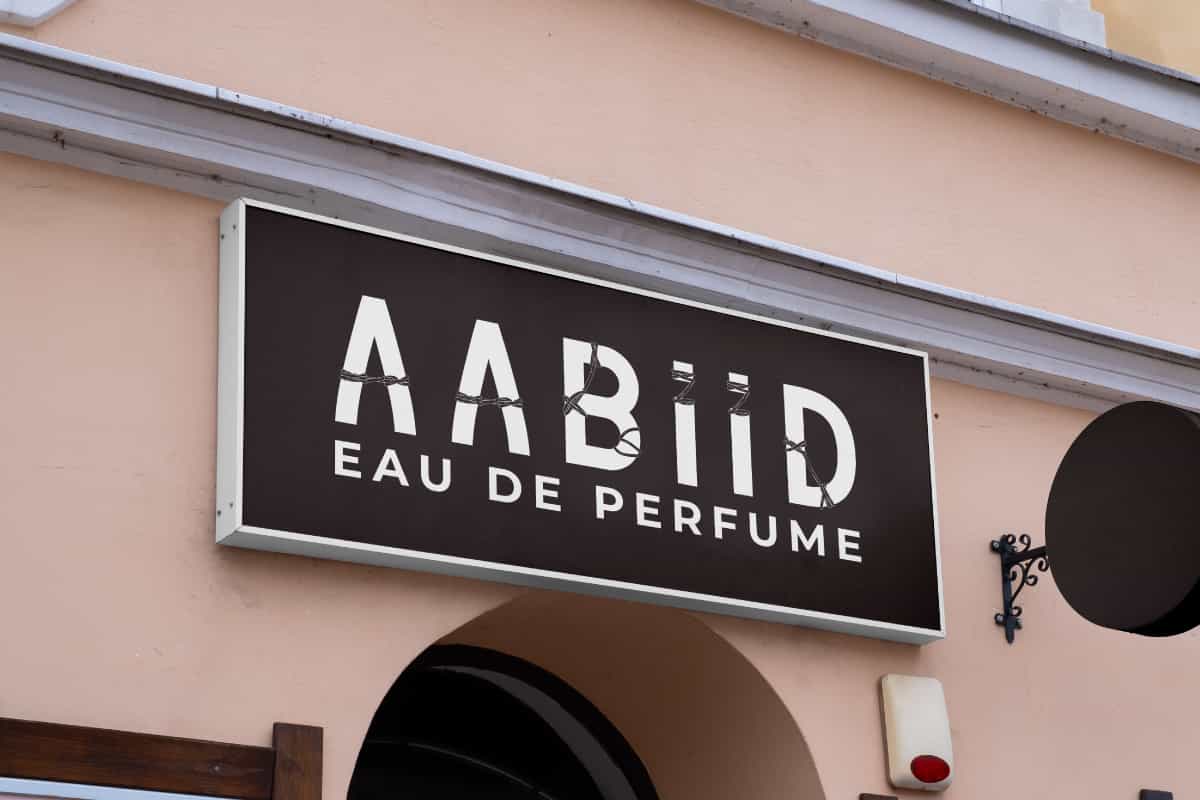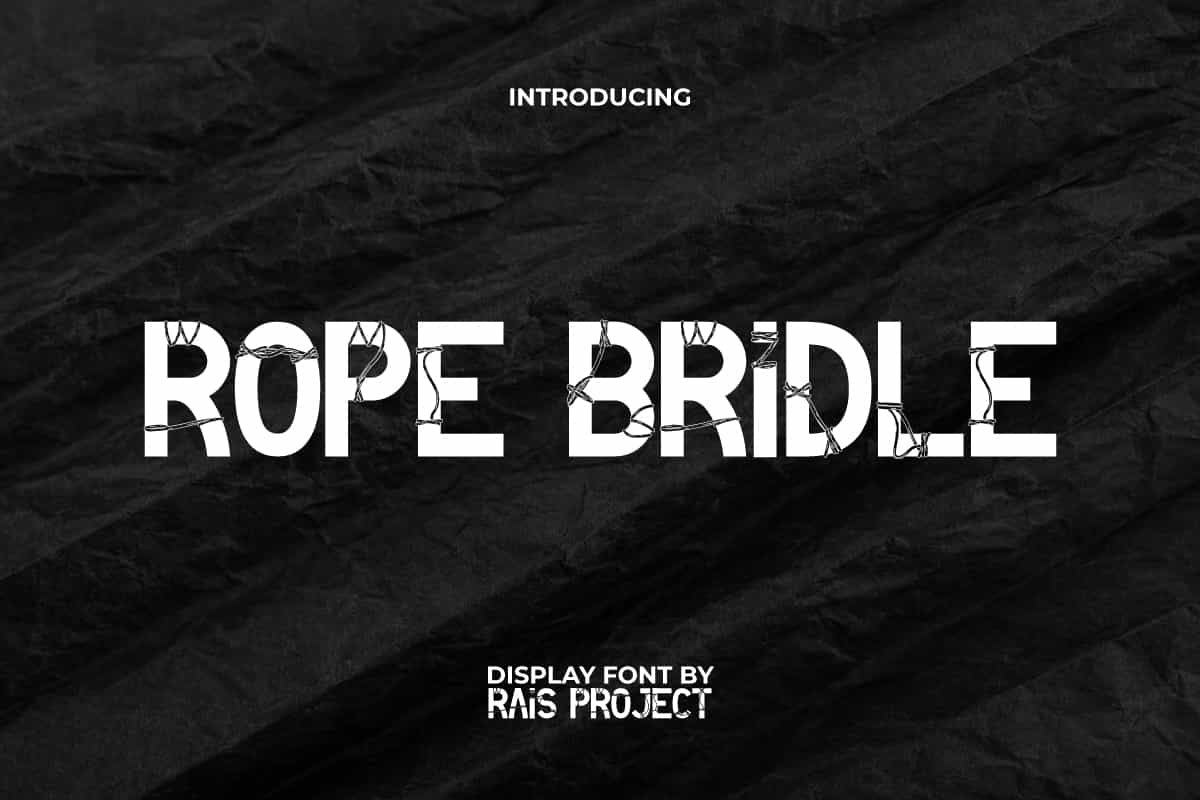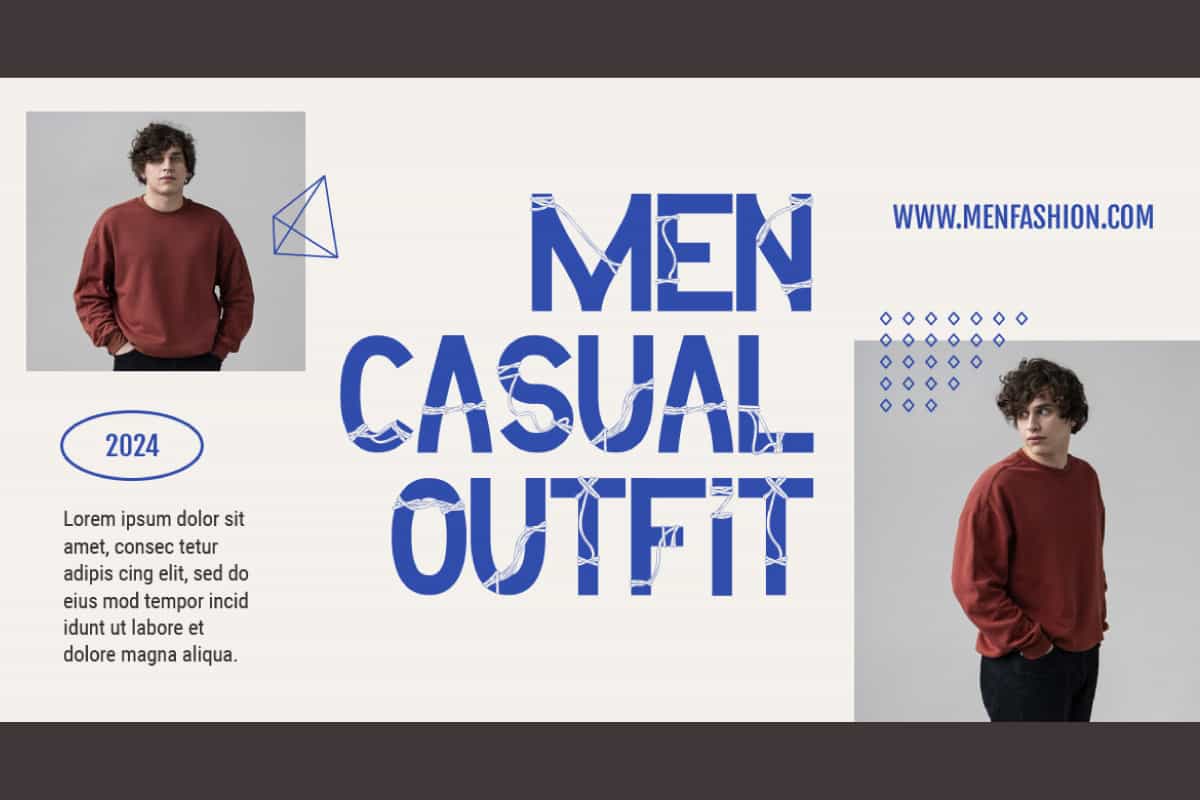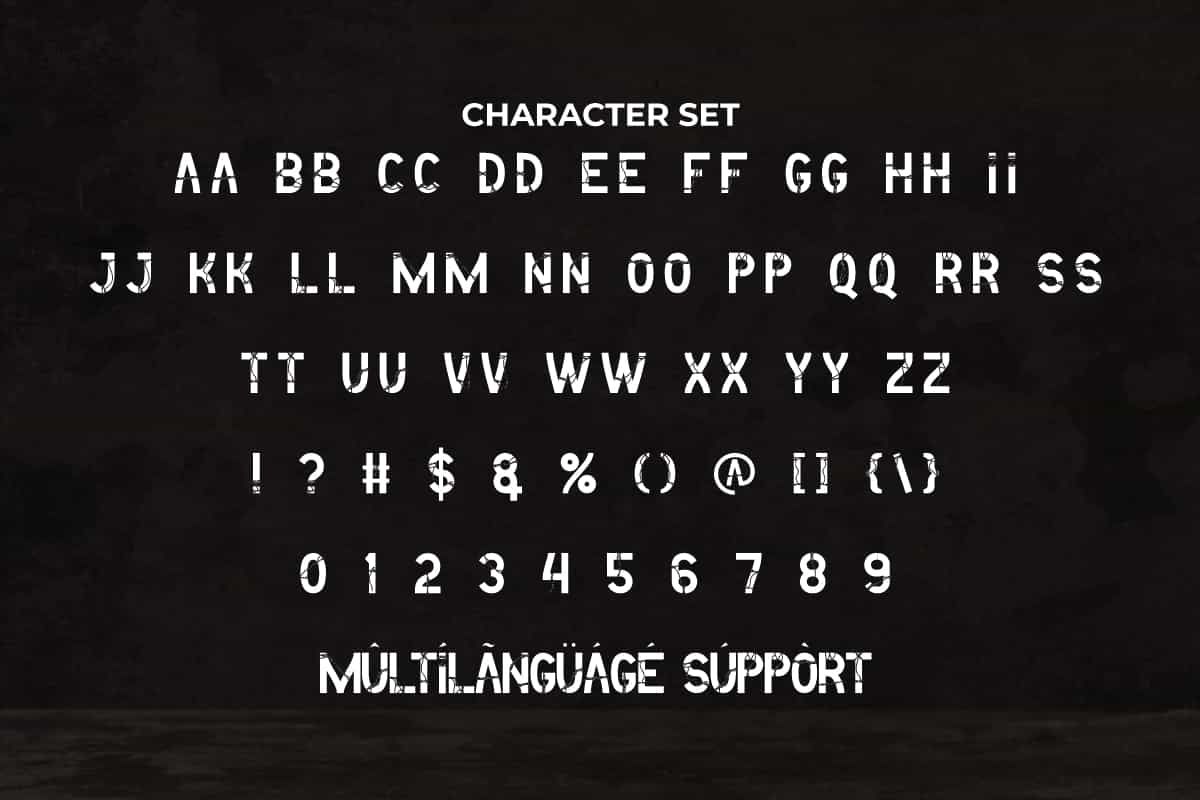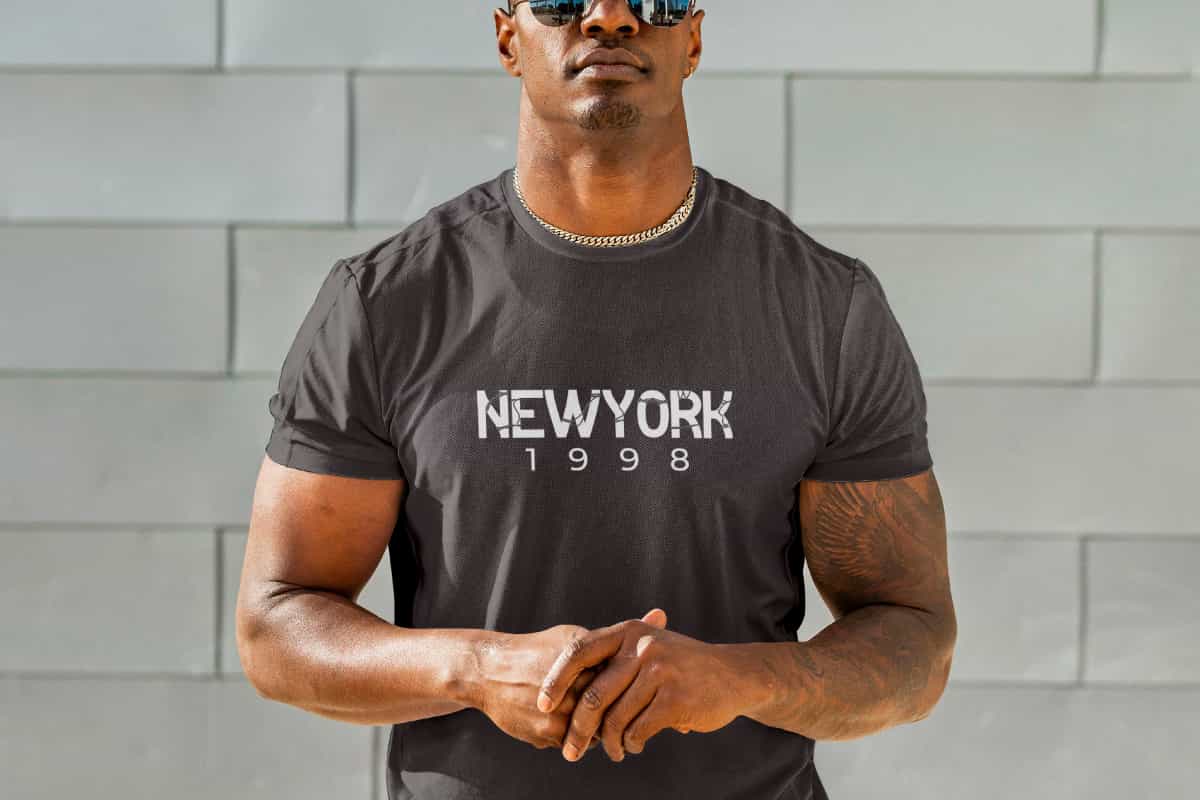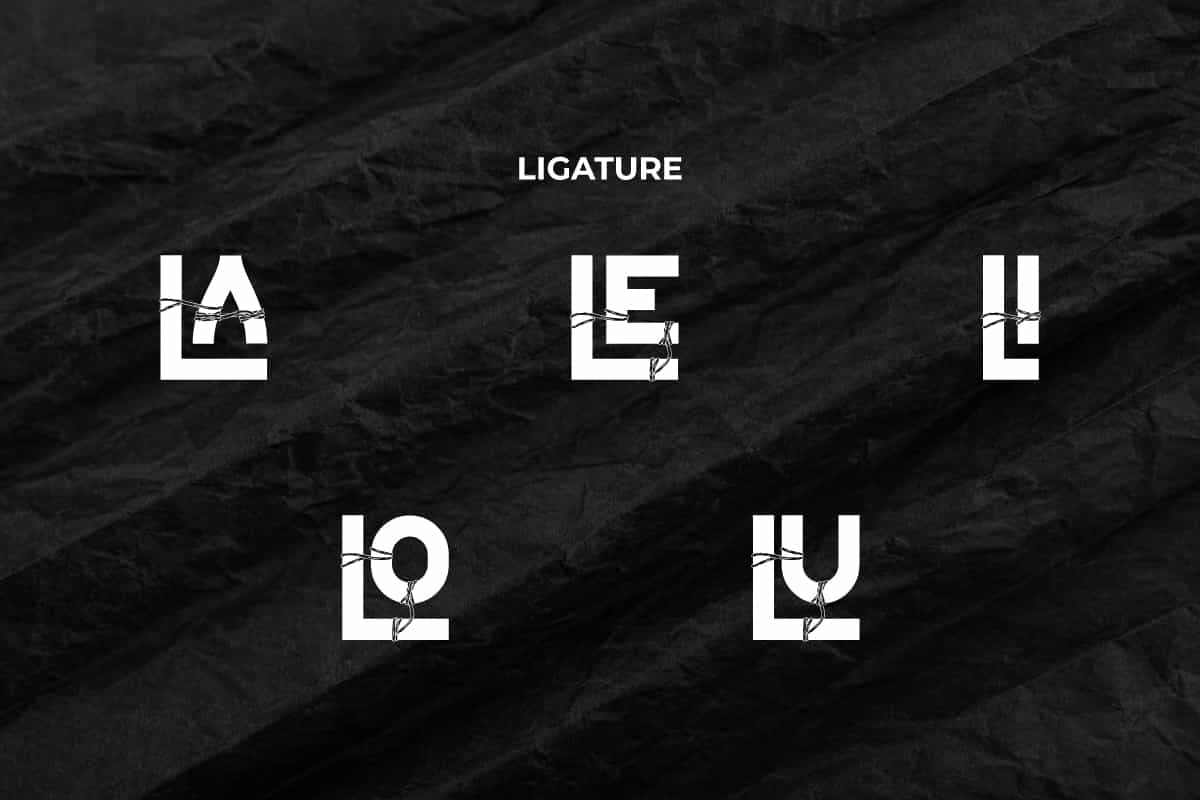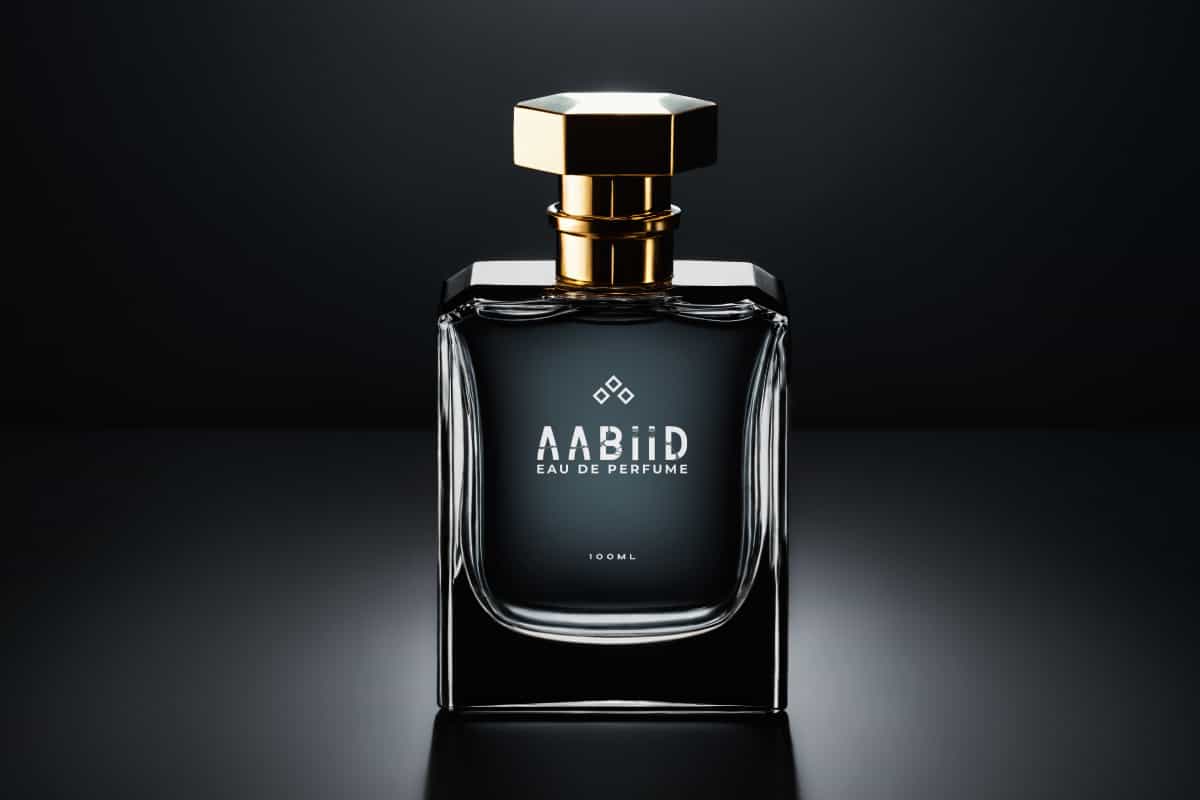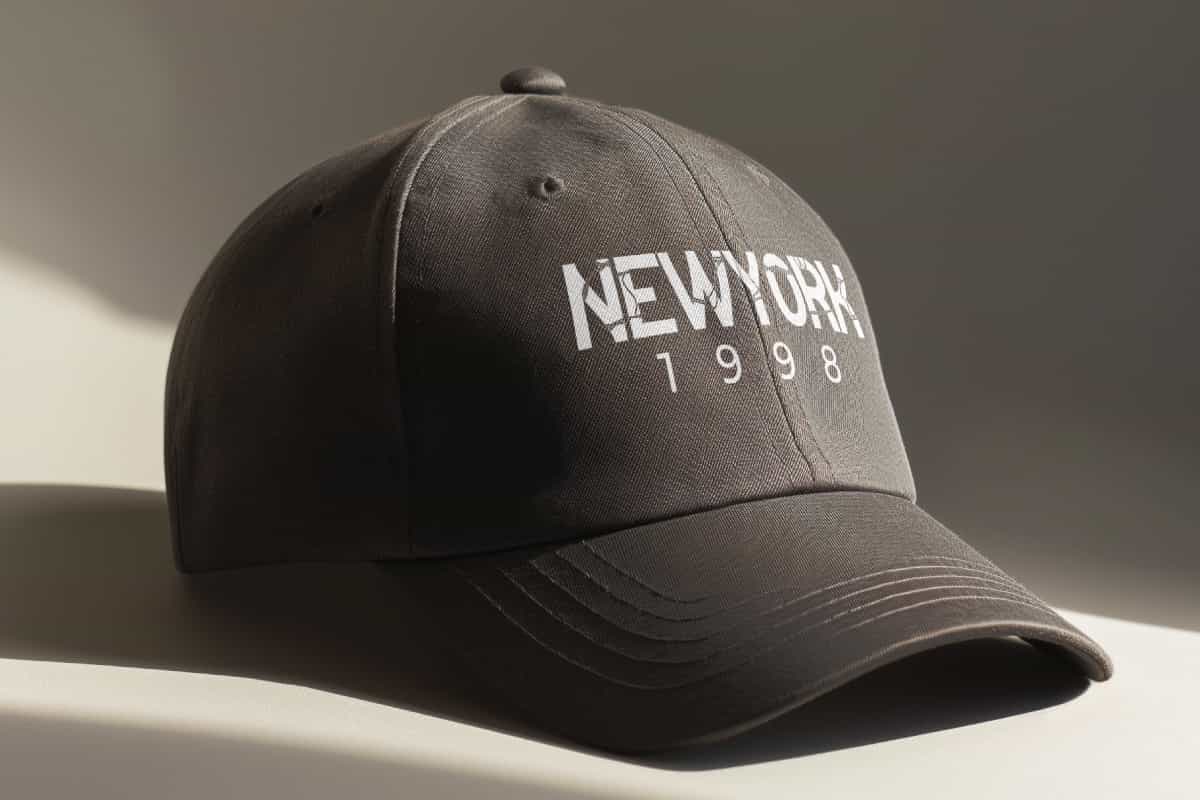
Rope Bridle Font
Rope Bridle Font is a decorative display font with chained rope bounded letter. Use this font now to make your design standout.
Rope Bridle Font is a special decorative display font with chained rope bounded letter. There is a rope wrapped around each letter in a different position and style. It will be good for any designs, such as signage, advertisement, brand image, custom design, invitation, label, marketing material, poster, product packaging, quotes, stationery, website page, and more!
Rope Bridle Font includes a full set of ALL CAPS for Uppercase and Lowercase Letters, Numerals, large range of Punctuation, and Ligature character. This unique font will be suitable for various industries, such as fashion, cafe, event or festival, sport, game, printing, publishing, photography, sports, etc.